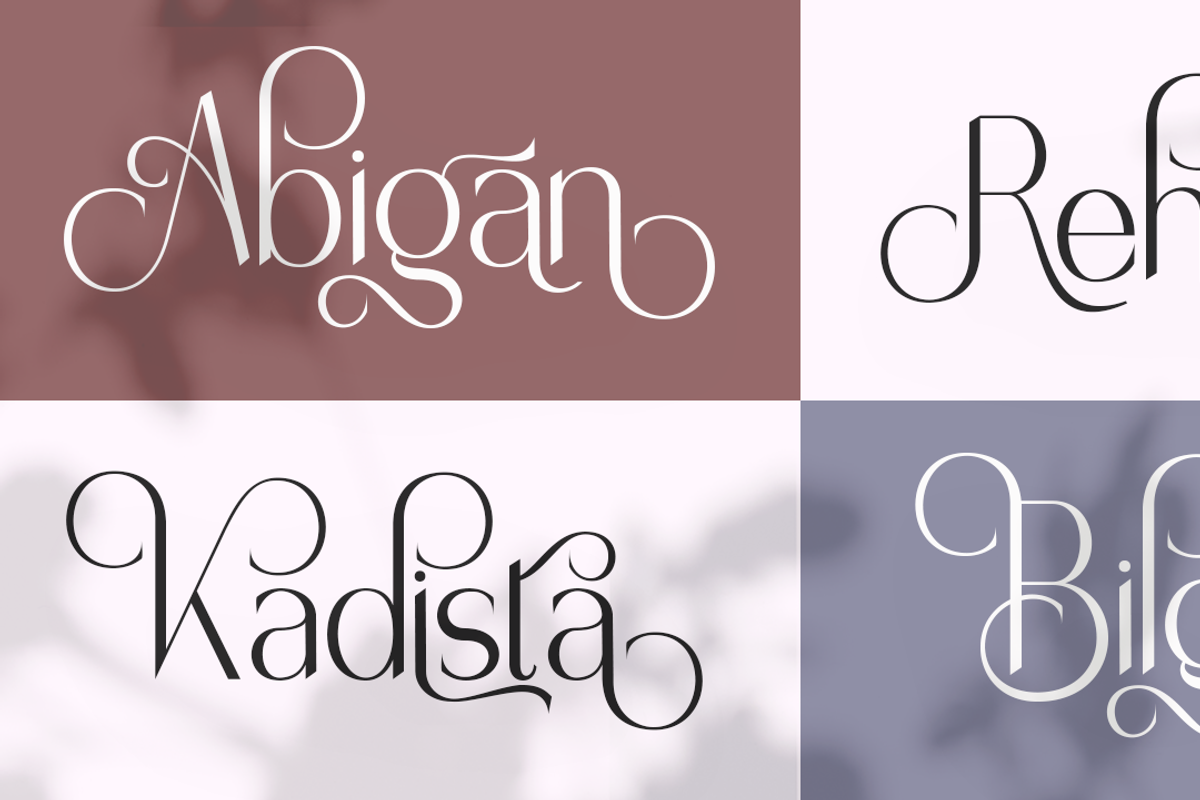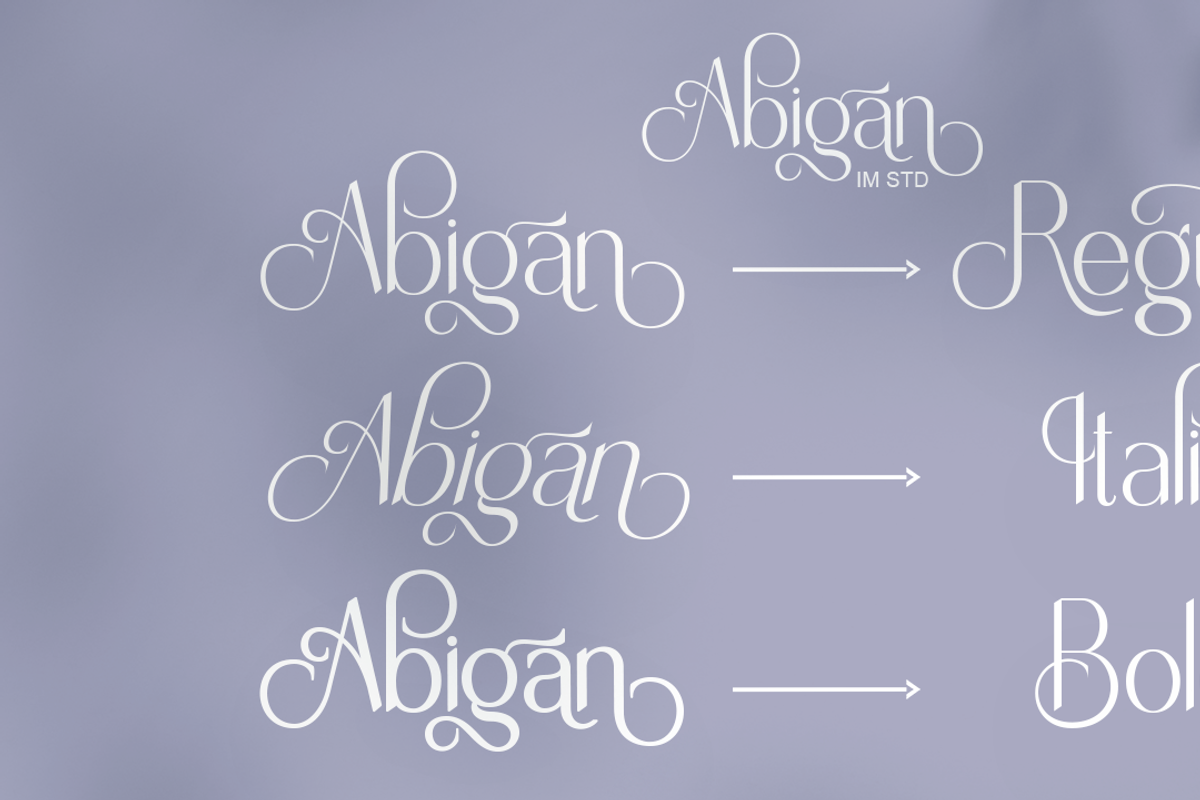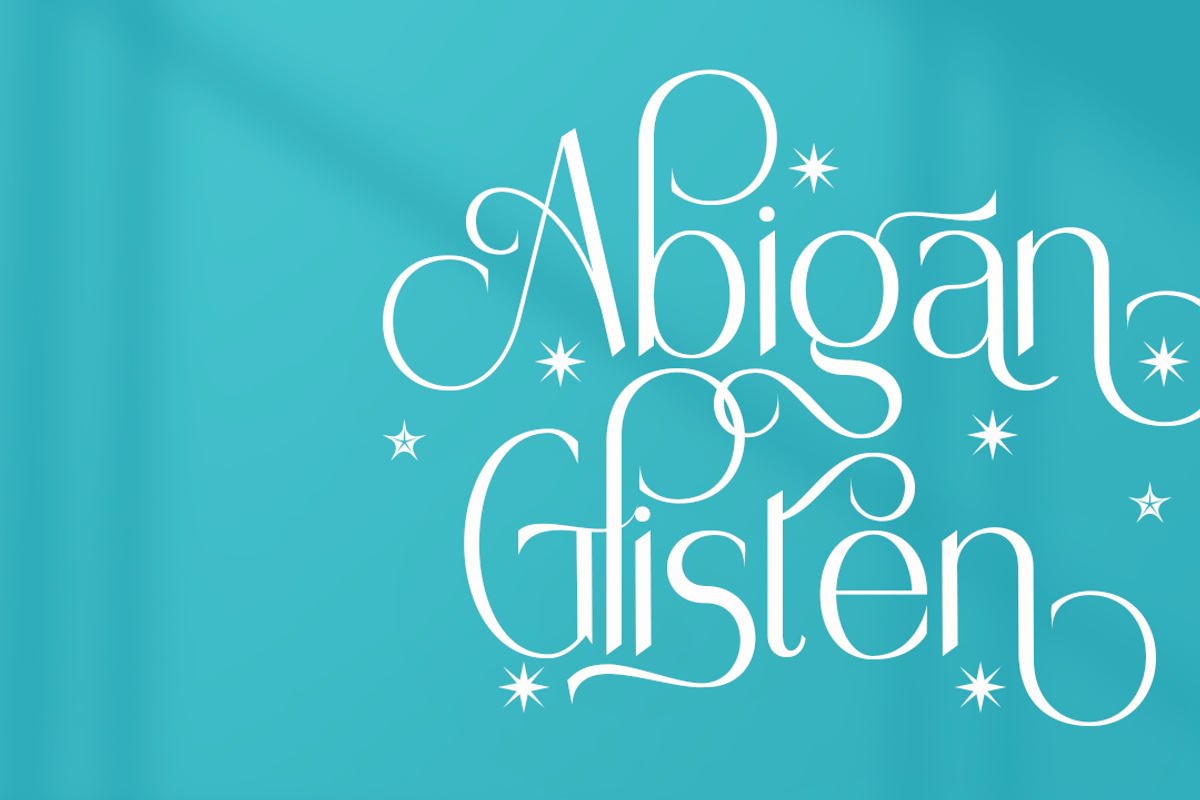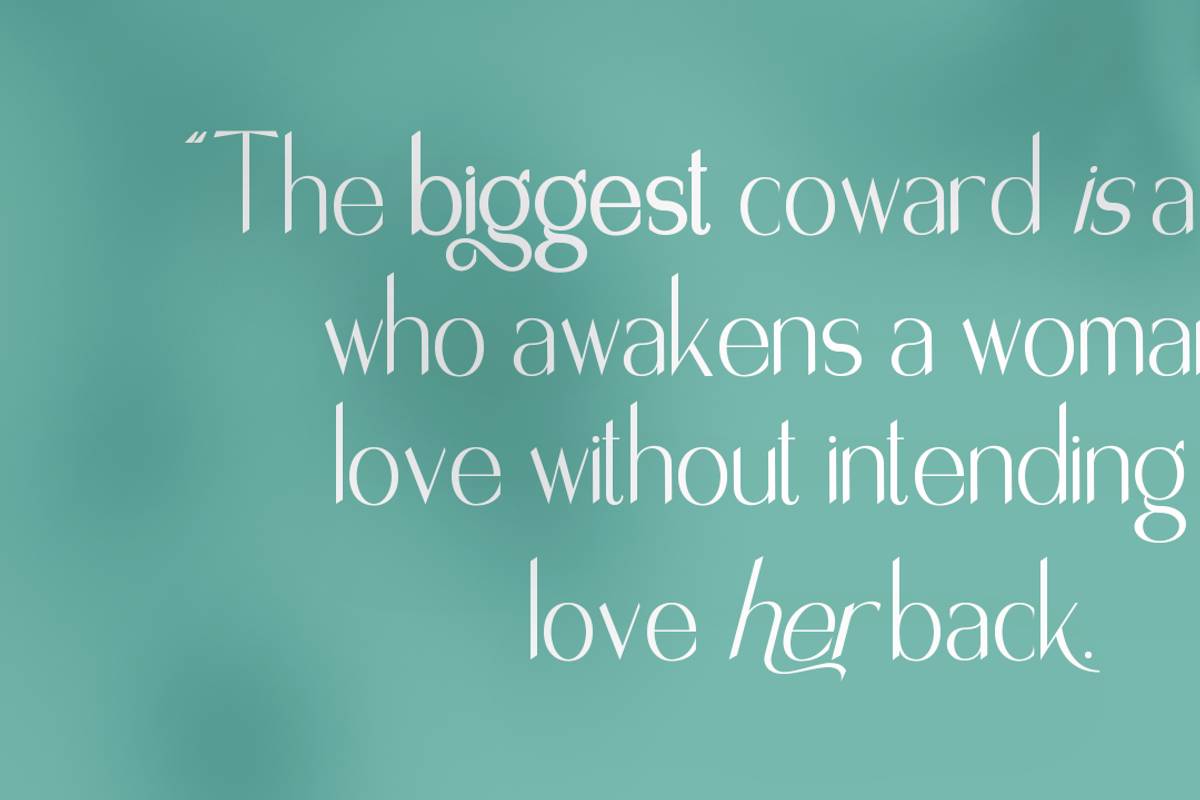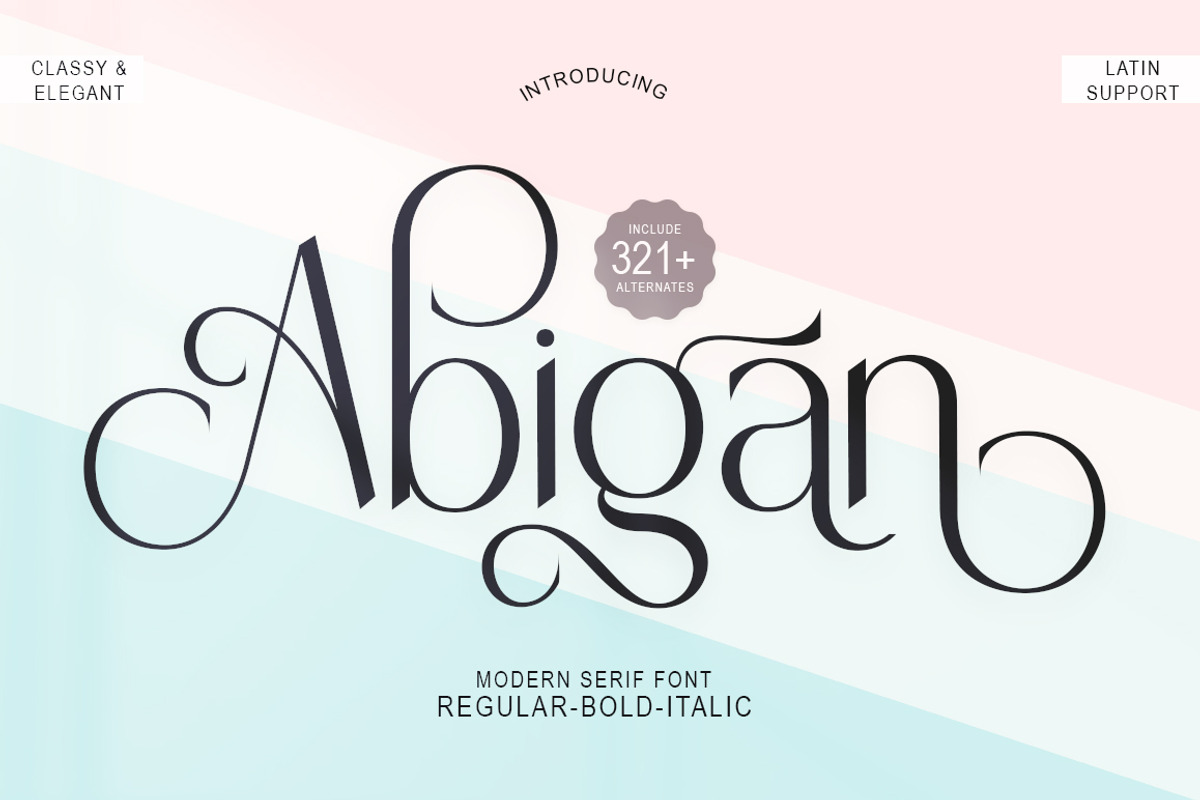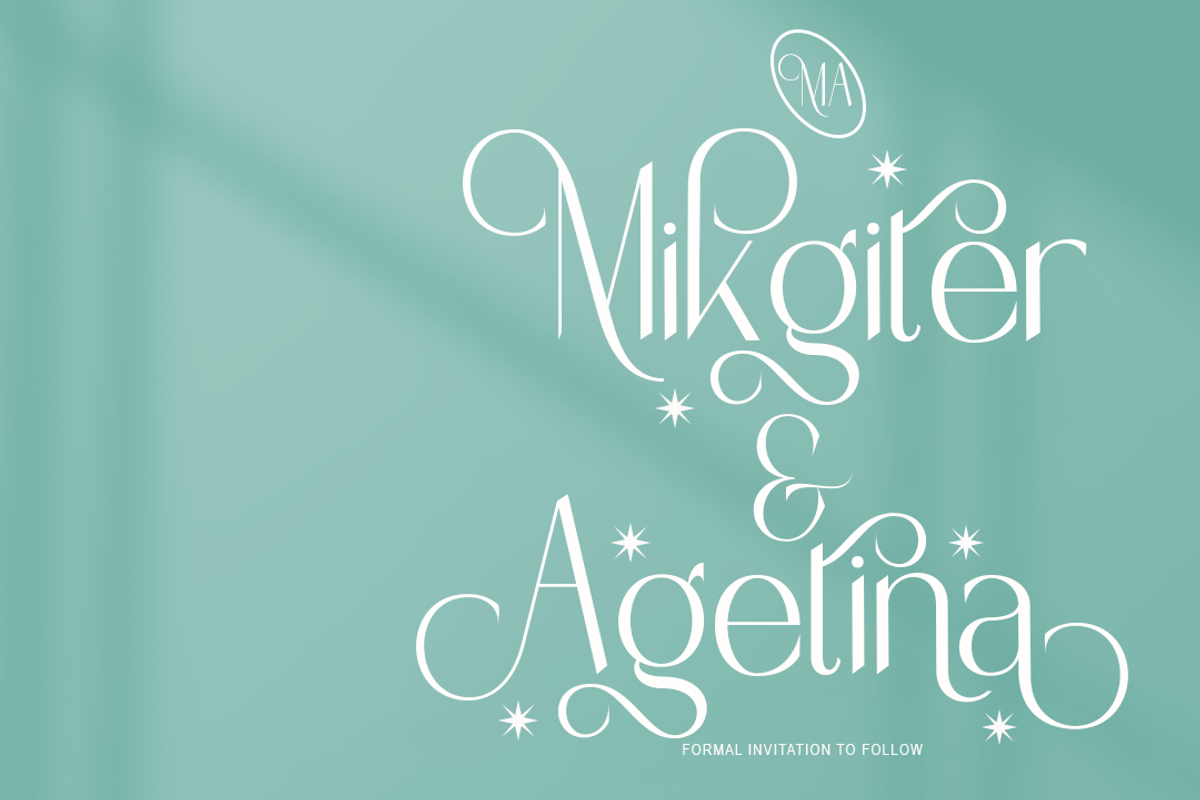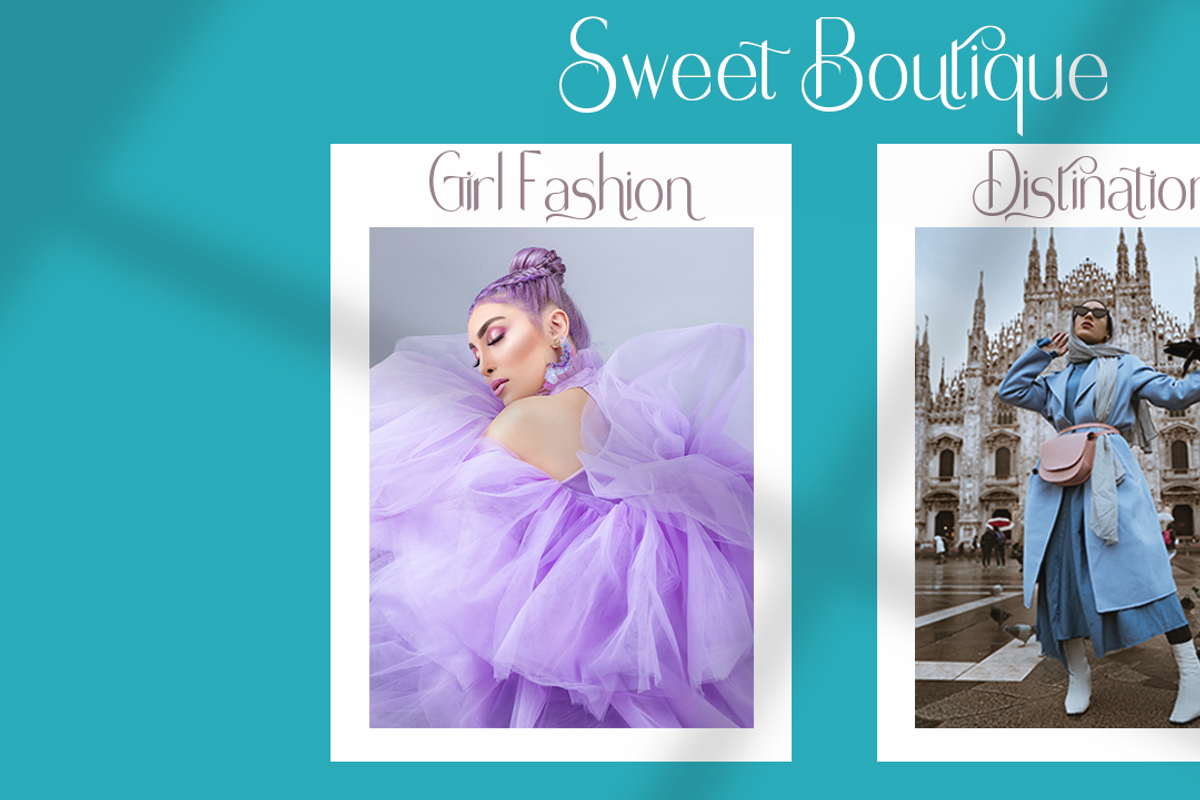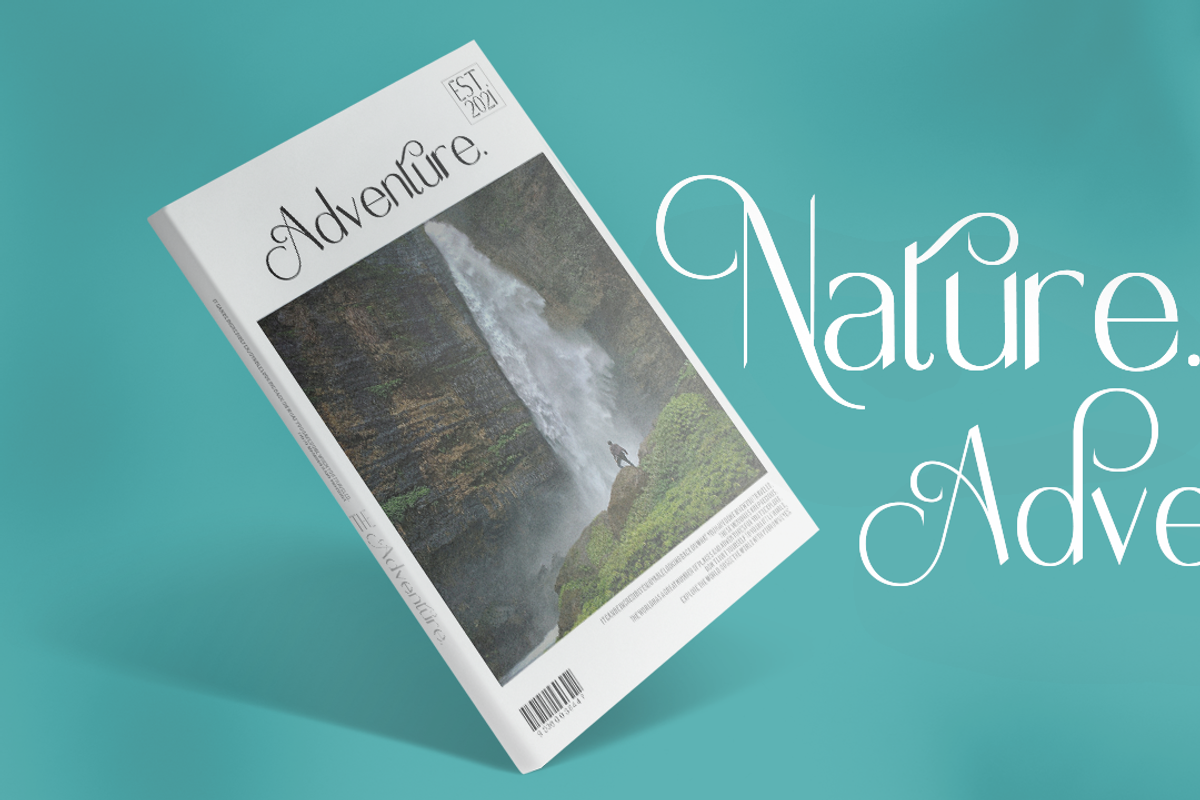
Abigan
Abigan is an elegant and modern minimalist font family, a new carefully crafted roman sans serif font, The idea of this font comes from various references, from vintage, classic, art deco, to modern era. Carefully drawn with high contrast between thick and thin strokes with the aim of making even the simplest sans serif fonts look sensual, elegant and warm. The feeling of versatility and luxury you get at the Abigan. As you can see in the display of our creations such as Branding, Header, Logotype, Poster, Magazine, Packaging, Art deco Wedding Invitations, and others.
This shows that Abigan can accommodate a variety of design styles.
The flat line includes five styles (light, regular, medium, semi-thick, Thick each), each of which covers nearly 321 glyphs. OpenType features include standard ligatures and a small number of character variants, and multilingual support (including multiple currency symbols).
This type of family has become the work of true love, making it as easy and fun as possible.